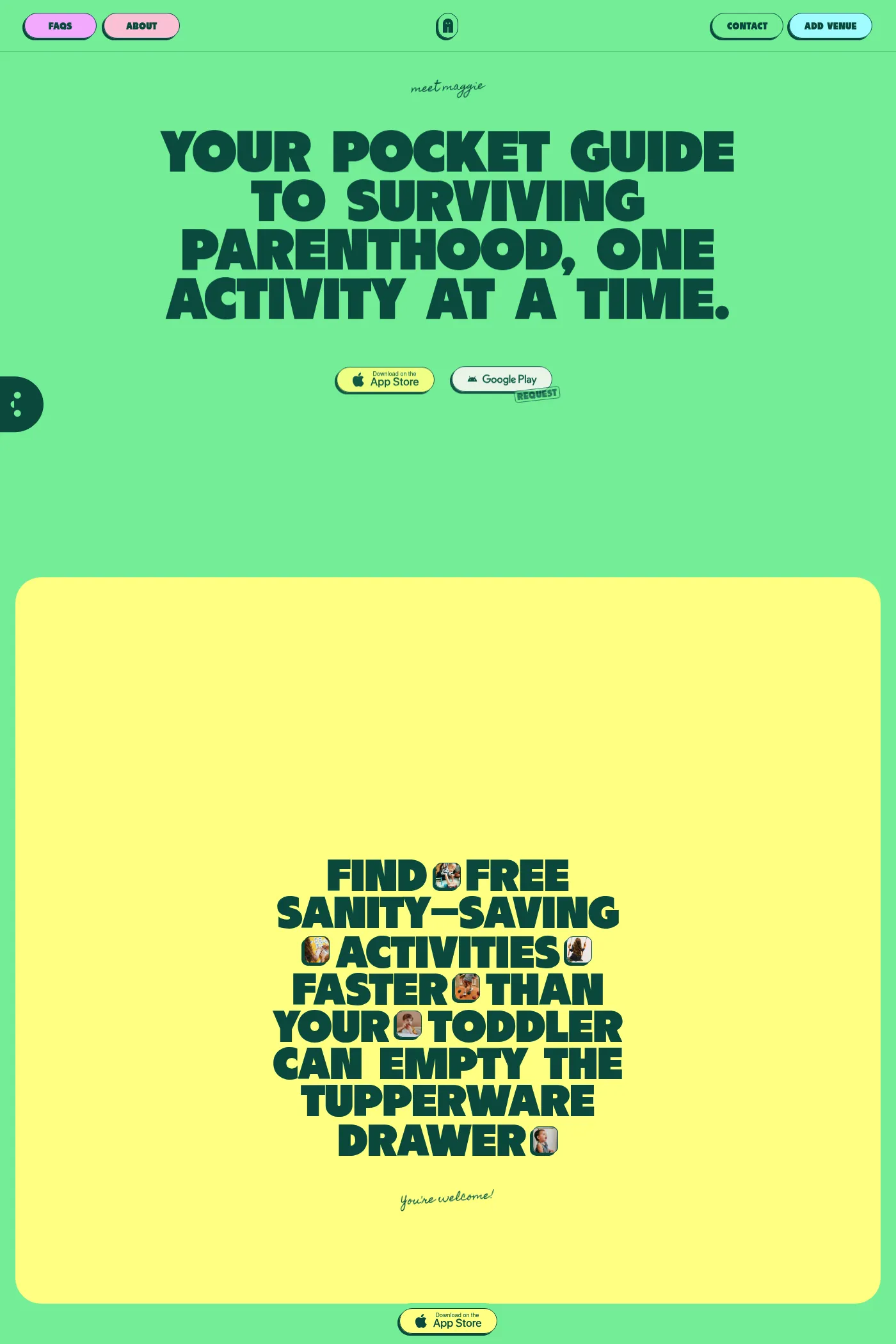
Homemade Apple is a handwriting typeface from Font Diner.
Nothing says down-home goodness like a delicious Homemade Apple pie. For a good one, you have to make it yourself.
A1 features 1 website using Homemade Apple. It leans towards Colourful, Fun, and Big type design styles, and it’s most often built with Framer.